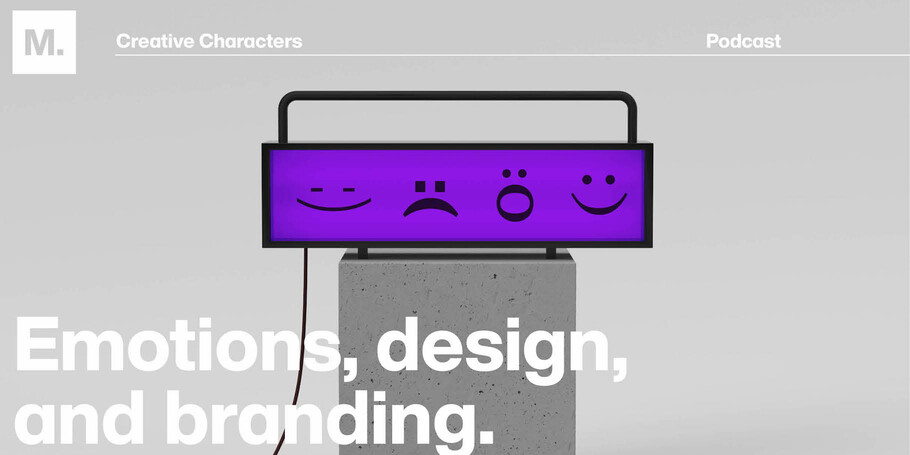
Creative Characters S3 E16: What our emotions can teach us about design and branding.
Can you remember a time you had an emotional reaction to type? Have fonts ever made you feel some type of way? This week, we dive into Monotype’s scientific research on the emotional power of typography.
Marie Boulanger, Senior Brand Designer at Monotype, joins as a guest and shares some of the thinking, methodology, and insights behind the global studies. You’ll also hear stories about fonts and feelings from designers, creative directors, and producers we spoke with at Brand Talks Chicago and Brand New Conference.